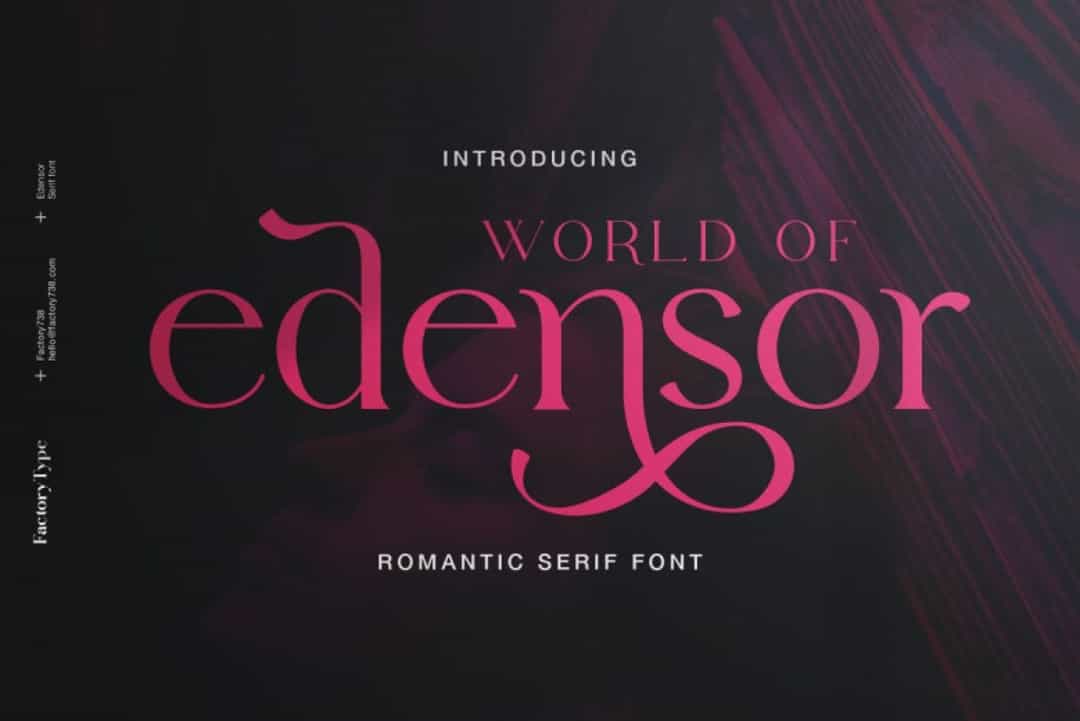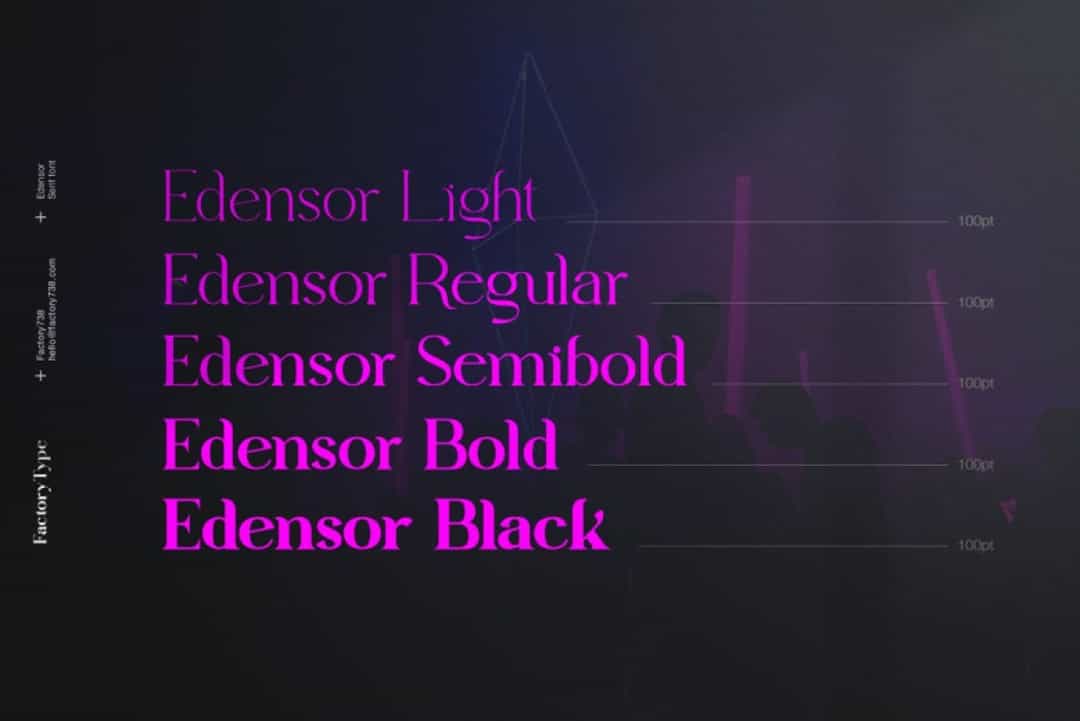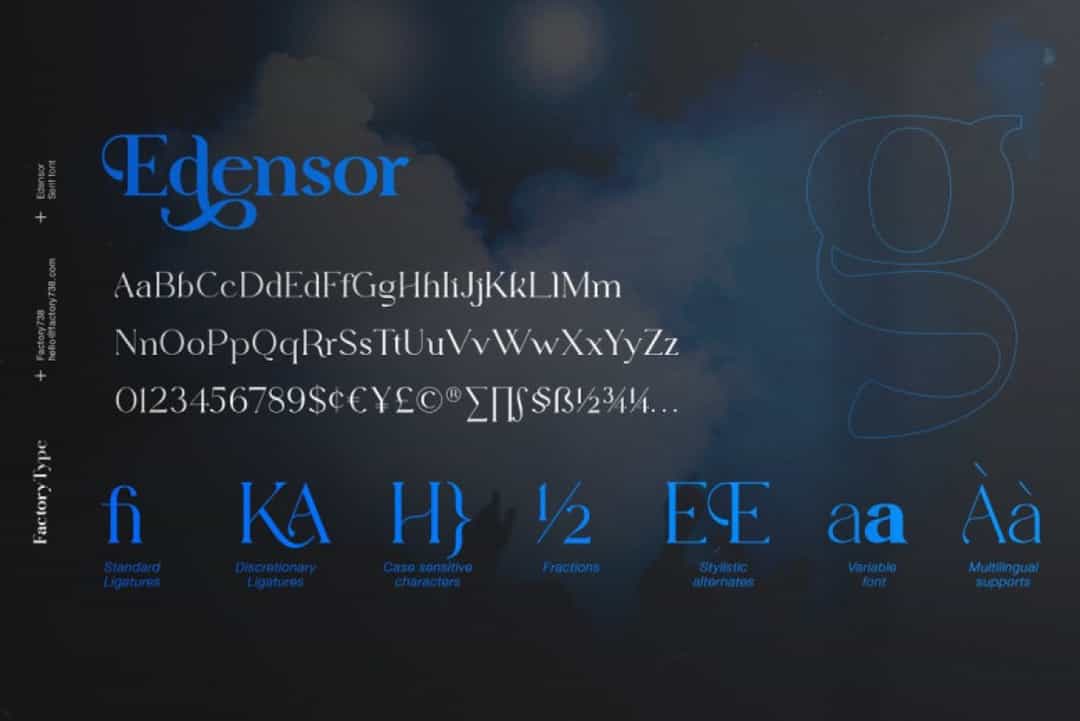
Edensor Serif Font is an eye-catching yet romantic serif. With its curvy curves enticing your eyeballs while maintaining an elegant posture. A wide range of weight options provides options that allow for customizing typographic color selection; Ligature and Alternate font styles provide endless creative potential!